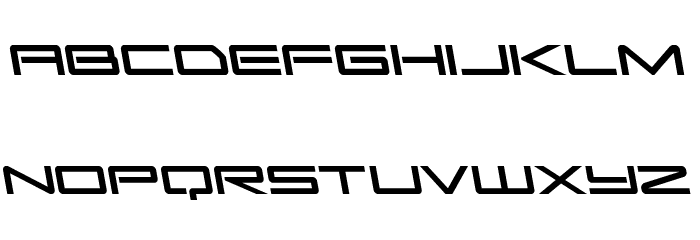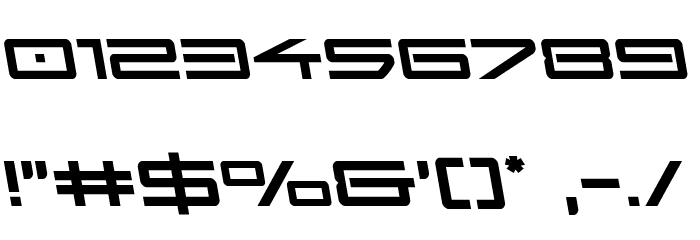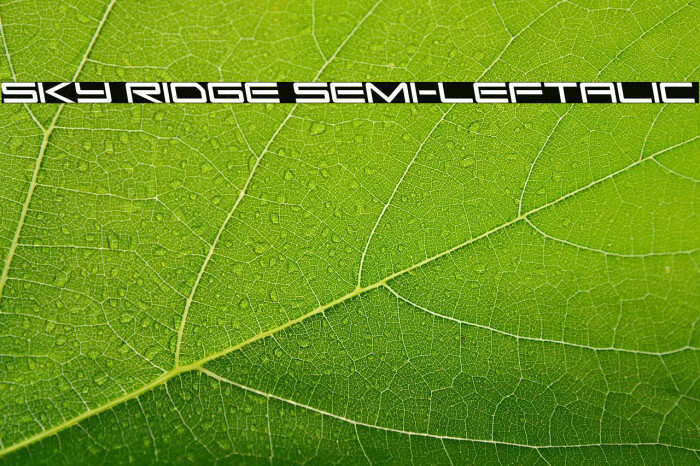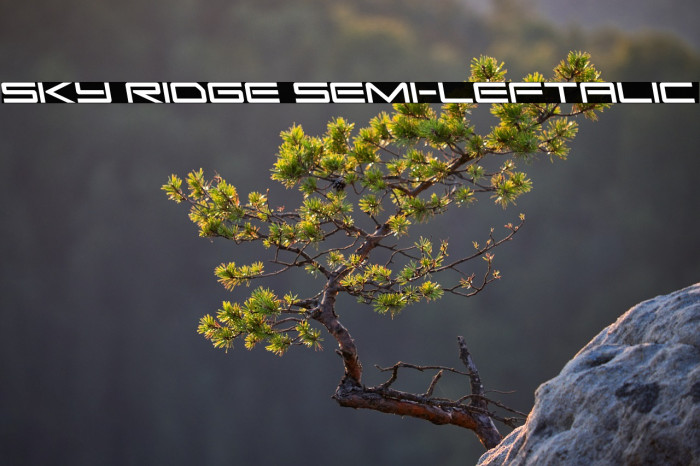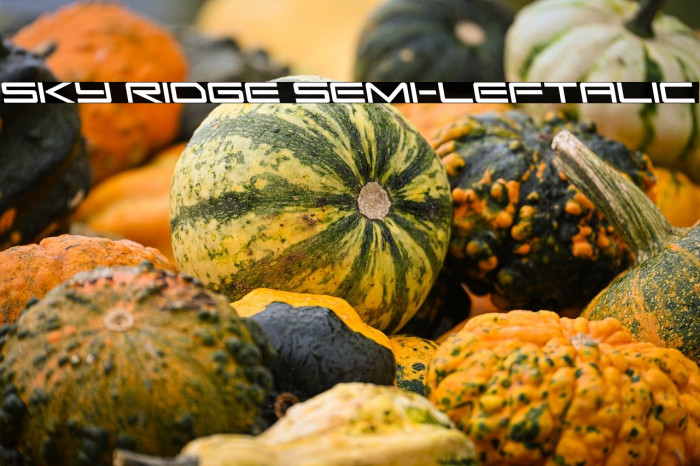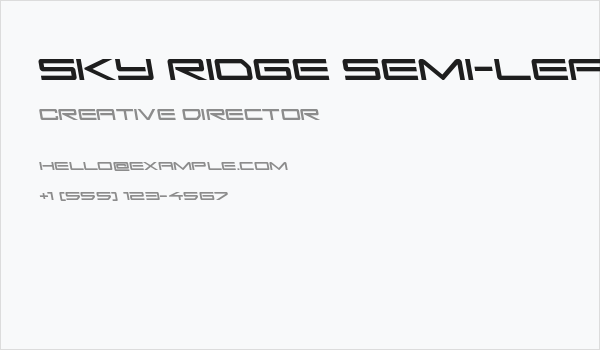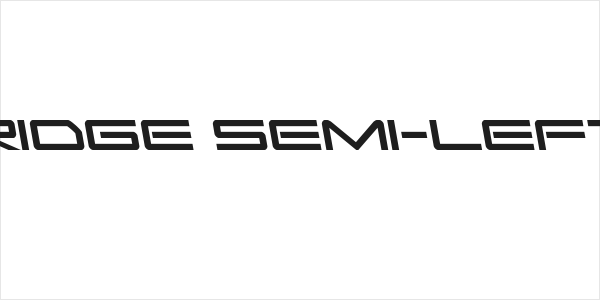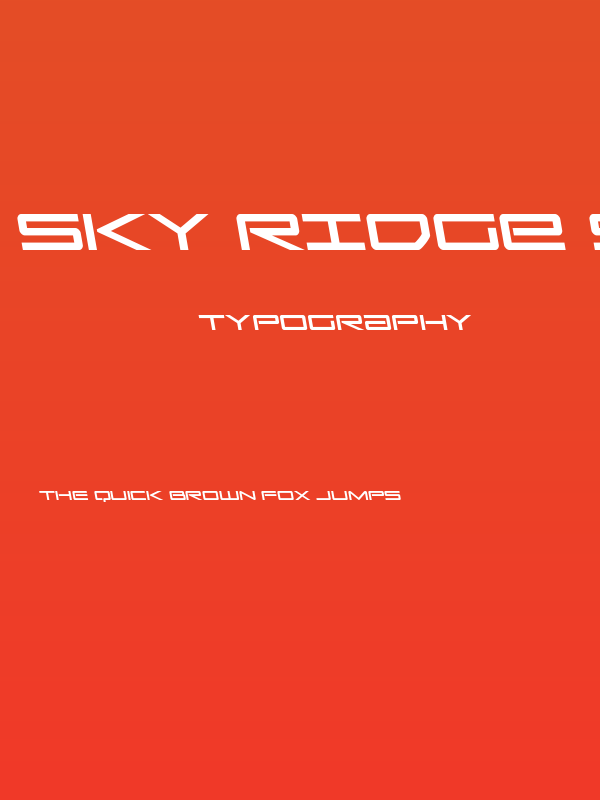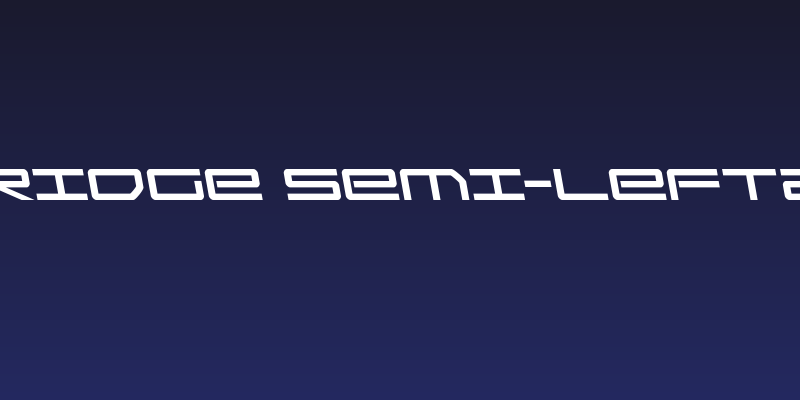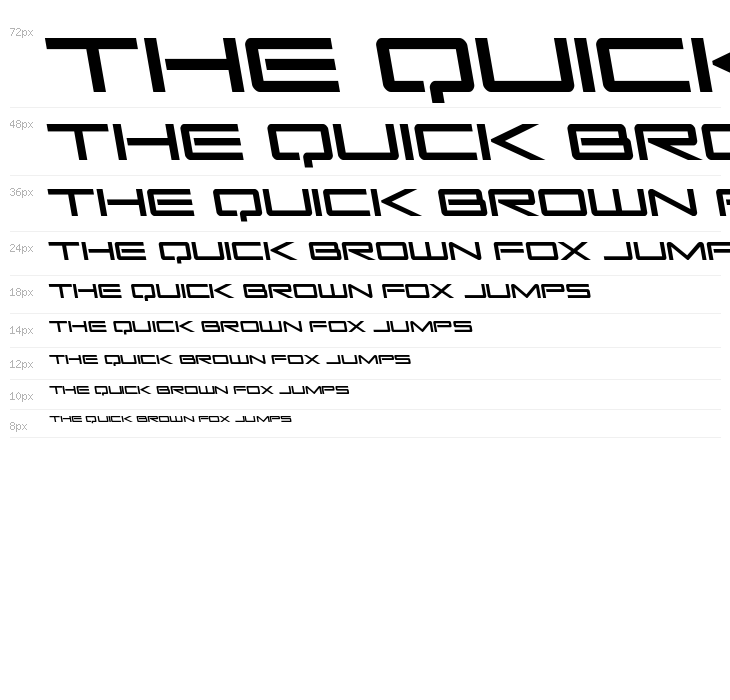
Sky Ridge Semi-Leftalic Font
This font features a futuristic and geometric design with a distinct angular style. The characters are slightly slanted, giving a dynamic and forward-moving appearance. The strokes are consistent in thickness, providing a uniform look across all characters. The uppercase and lowercase letters maintain a cohesive style, with sharp edges and a modern aesthetic. The numbers and special characters follow the same design principles, ensuring a harmonious overall appearance. This font is ideal for projects that require a contemporary and tech-inspired look.
A futuristic, angular font with a dynamic slant and consistent stroke thickness.
- Proposed Projects: Ideal for technology branding, sci-fi posters, video game titles, and modern advertising.